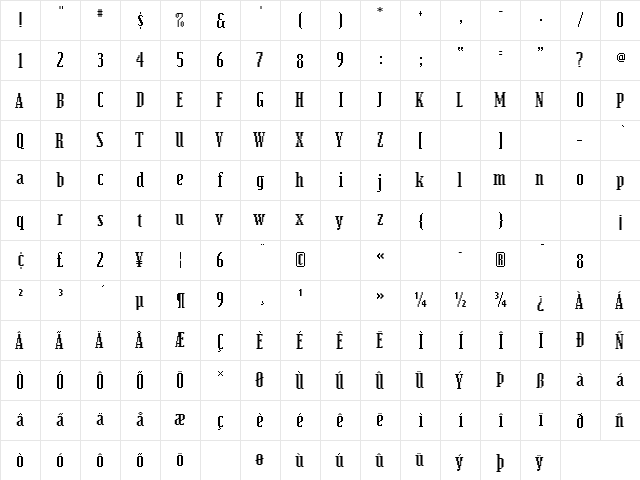
EmigreFifTeen Medium
Design Context for EmigreFifTeen Typeface
EmigreFifTeen is a composed and adaptable typeface that performs quietly and consistently across a wide range of design contexts.